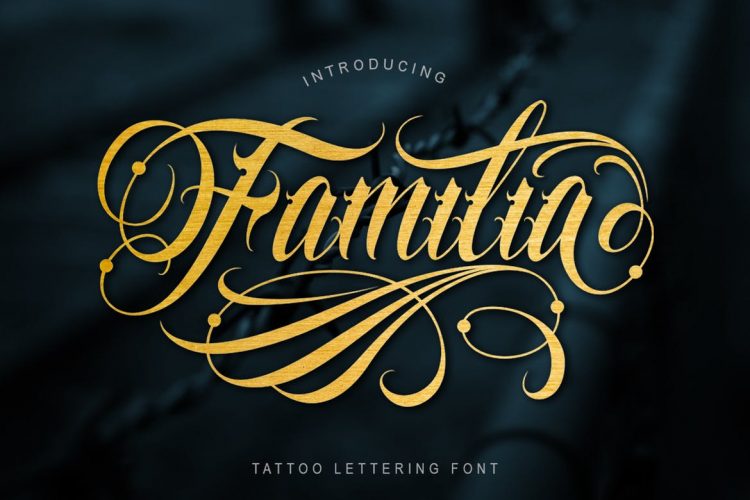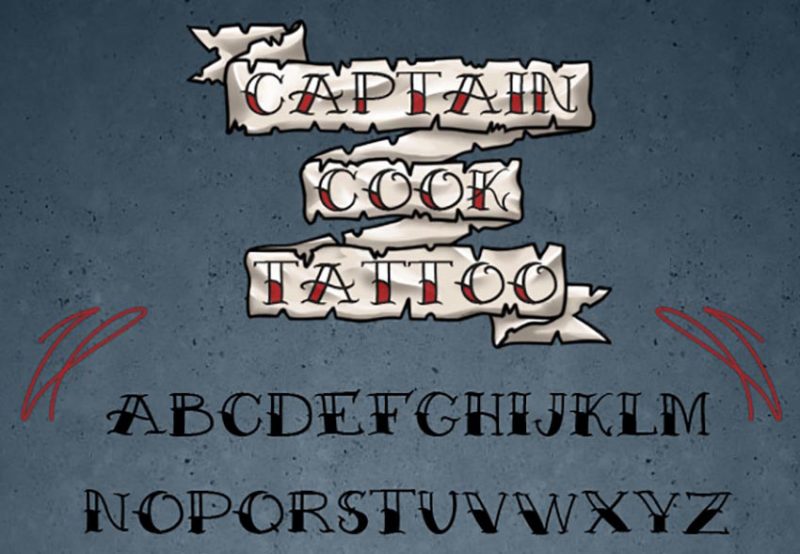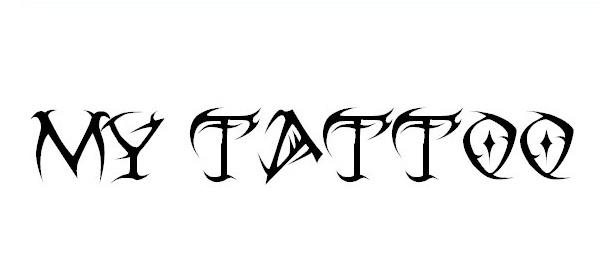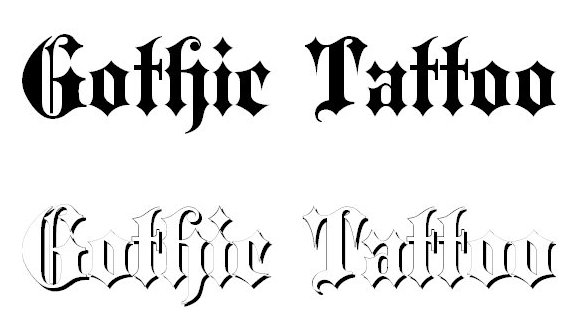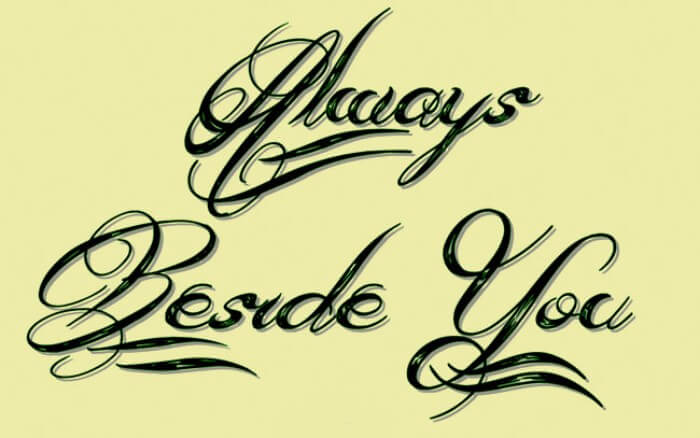
popular tattoo fonts 2020
Popular tattoo fonts 2020. From amazing throwback sans serifs pulled from the mid century to kinetic animated fonts from bare bones minimalism to ornate vintage styles designers are figuring out how to use past trends to make fresh designs we cant get enough of. So youve decided on a word quote or line of text that youd like to get tattooed but now the next decision is what kind of font to choose. Also if theres a font you love and we missed it mention its name in the comments below and we will check it out. That ends our article on the best tattoo fonts that you can use in 2020 to create your next inspiration.
Both styles can be used to design titles and sub headings in various types of designs. One one side well see the modern sans serif fonts that have dominated the digital space continue to flourish and on the other colorful and expressive character fonts will become more popular with brands and designers alike. Script style tattoo fonts feature much wider and longer curves while display tattoo fonts have more stylistic serifs. Oct 18 2020 explore jessica hardgraves board tattoo fonts followed by 150 people on pinterest.
2020 is going to be split right down the middle when it comes to font trends. 100 best free fonts for designers in 2020. We as humans have an affinity towards typefaces with a hand drawn styling. The font determines the overall feel and aesthetic of your tattoo regardless of the actual words so its super.
Jun 23 2020 explore kylie fergusons board best tattoo fonts on pinterest. Since tattoo fonts are rarely used to design body and paragraph text the most common types of tattoo fonts are script and display. Fortunately we have many unique tattoo font styles for men and women such as calligraphy cursive and traditional styles. Picking a font for your next tattoo is a very important decision.
Tattoo fonts perfectly carry this element all the while adding in some thick and bold strokes. This makes any statement made with tattoo fonts very much eye catching and appealing. Its clear that 2020 is going to be an exciting year for font trends. Tattoo fonts have managed to generate quite a big fuss among the tattoo lovers.